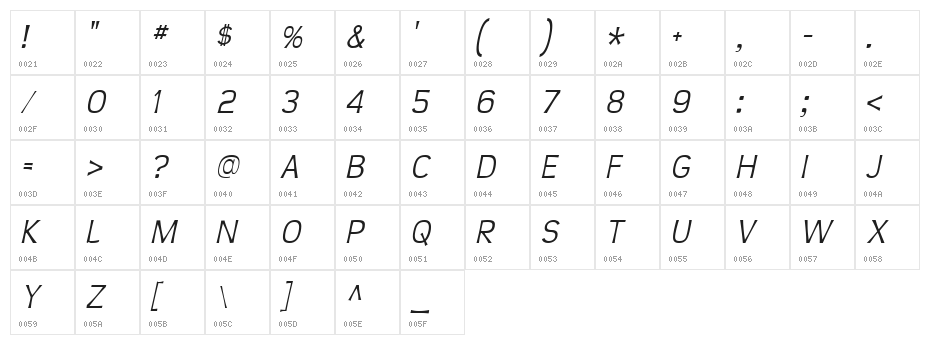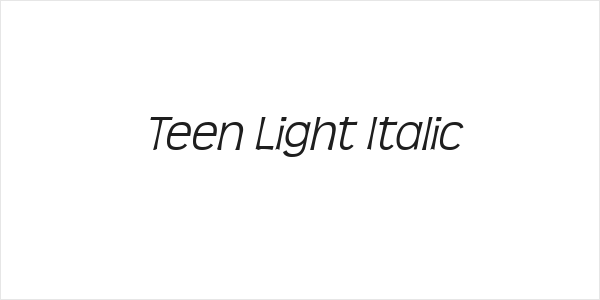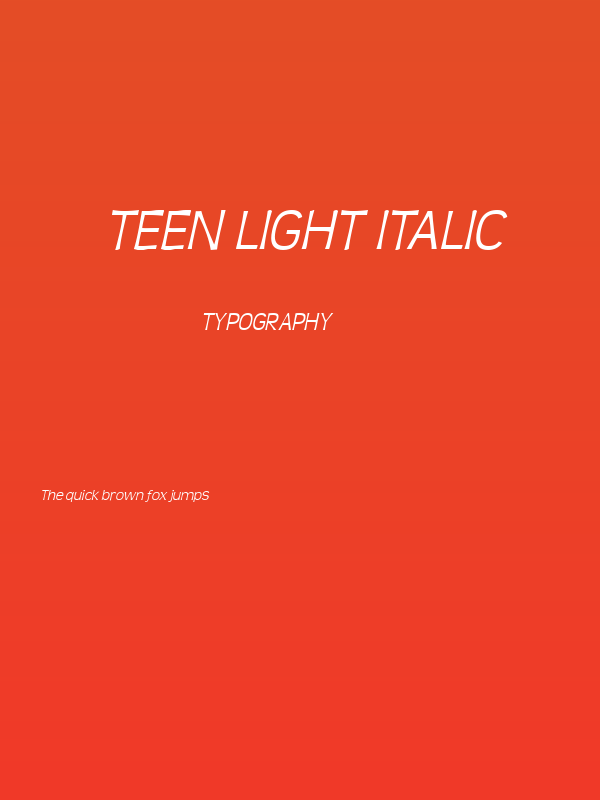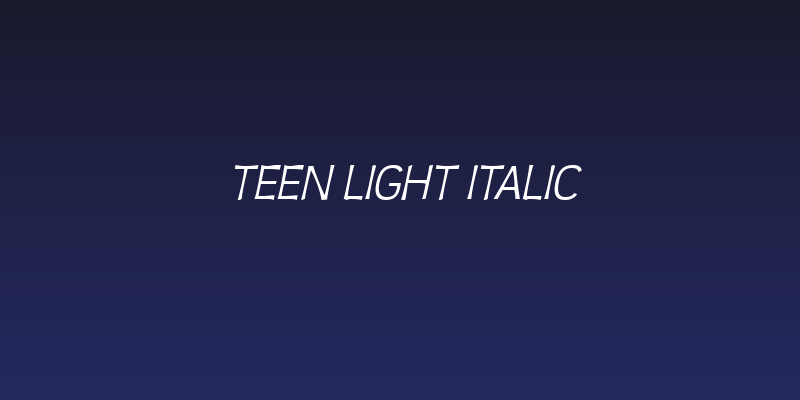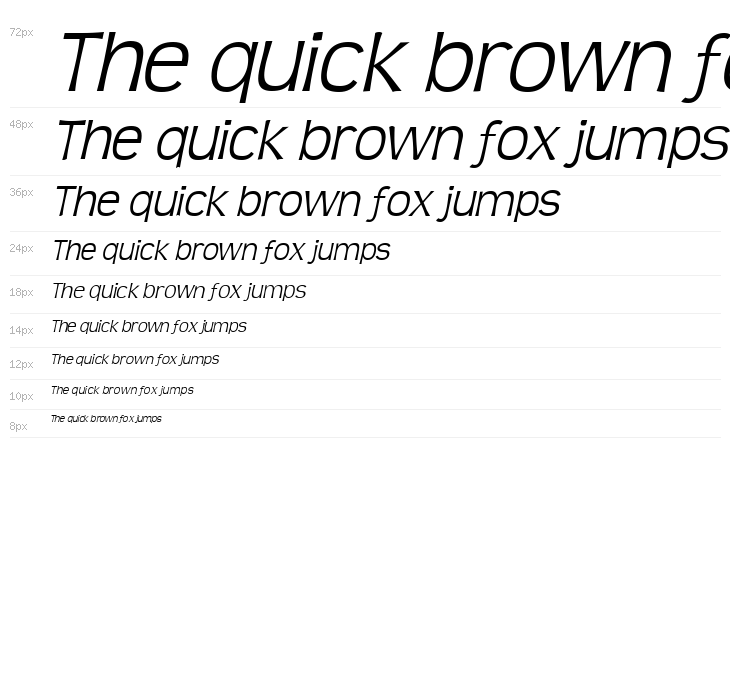
Teen Light Italic Font
Teen Light Italic Description
This font exudes a modern and sleek aesthetic with its clean lines and smooth curves. The italic style adds a dynamic and forward-leaning appearance, enhancing its contemporary feel. The characters are well-proportioned, maintaining a consistent flow across both uppercase and lowercase letters. The numerals and special characters are designed to complement the overall style, ensuring readability and versatility. Its light weight contributes to an airy and elegant look, making it suitable for various design applications where a subtle yet sophisticated touch is desired.
| Proposed Projects | Ideal for branding, editorial design, digital interfaces, and advertising campaigns. |